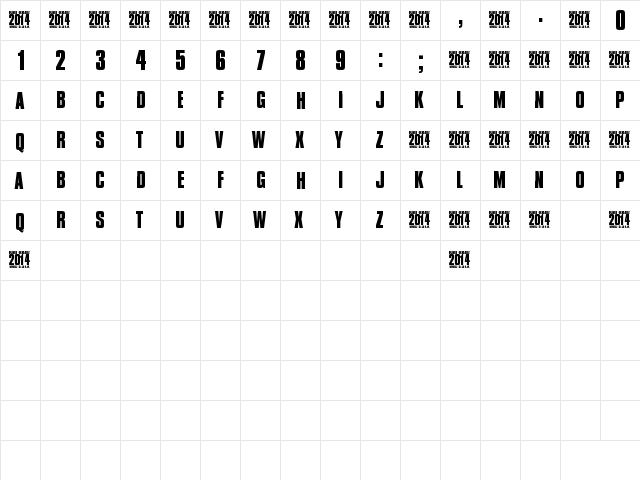
Godzilla MovieFont Regular Font Preview
Godzilla MovieFont Regular
Design Context for Godzilla MovieFont Typeface
Godzilla MovieFont takes a measured approach to typography — its balanced proportions and neutral character make it a reliable workhorse for both digital and print work.
Dating back to 2014, this typeface is available in TrueType (TTF) format.